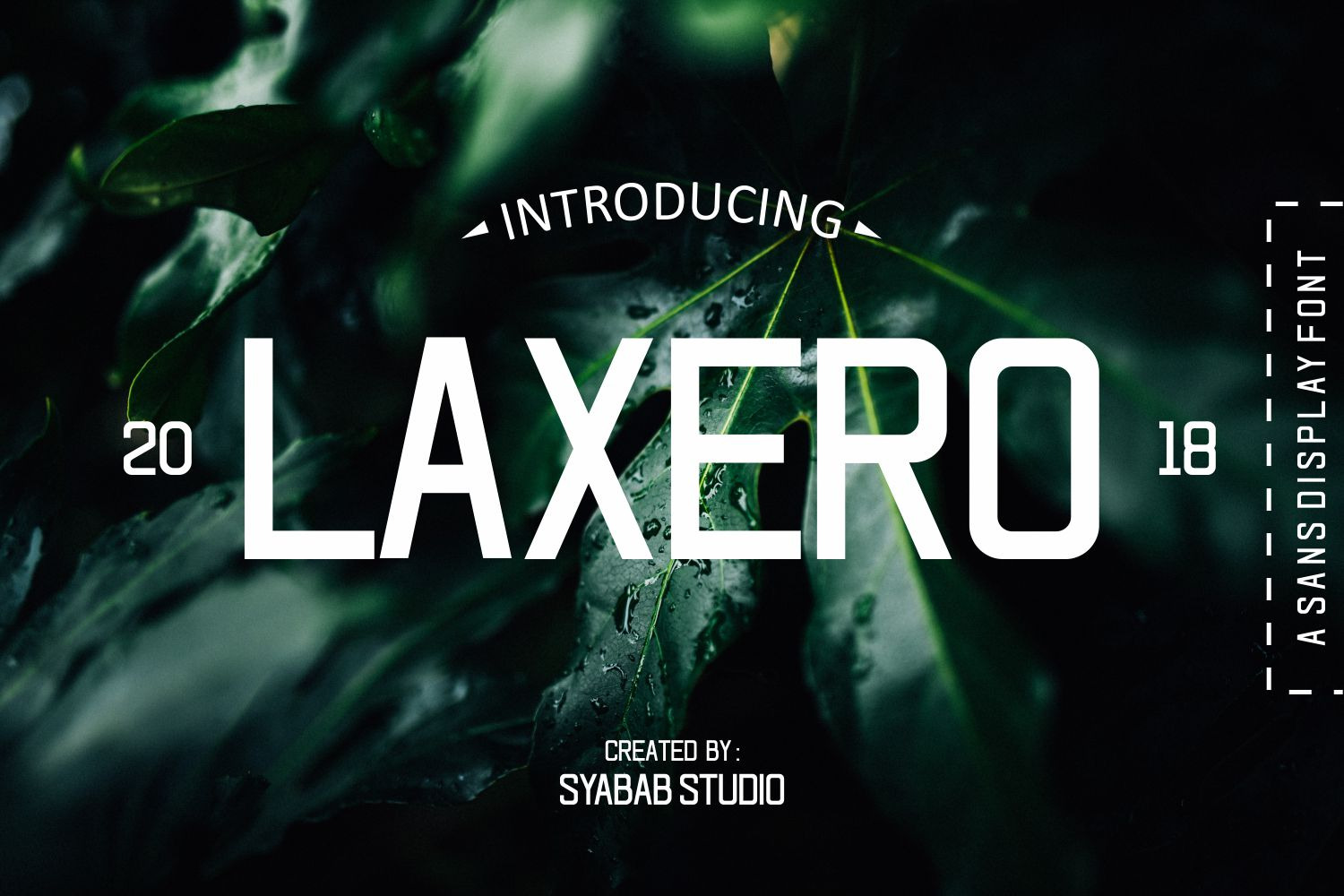
Laxero Font
Laxero is a sans serif font that is inspired by the shape of the thickness. It perfectly represents vintage aesthetics in a modern and minimalist way. In addition, this font is perfect for elegant logo design, headers, magazines or packaging.